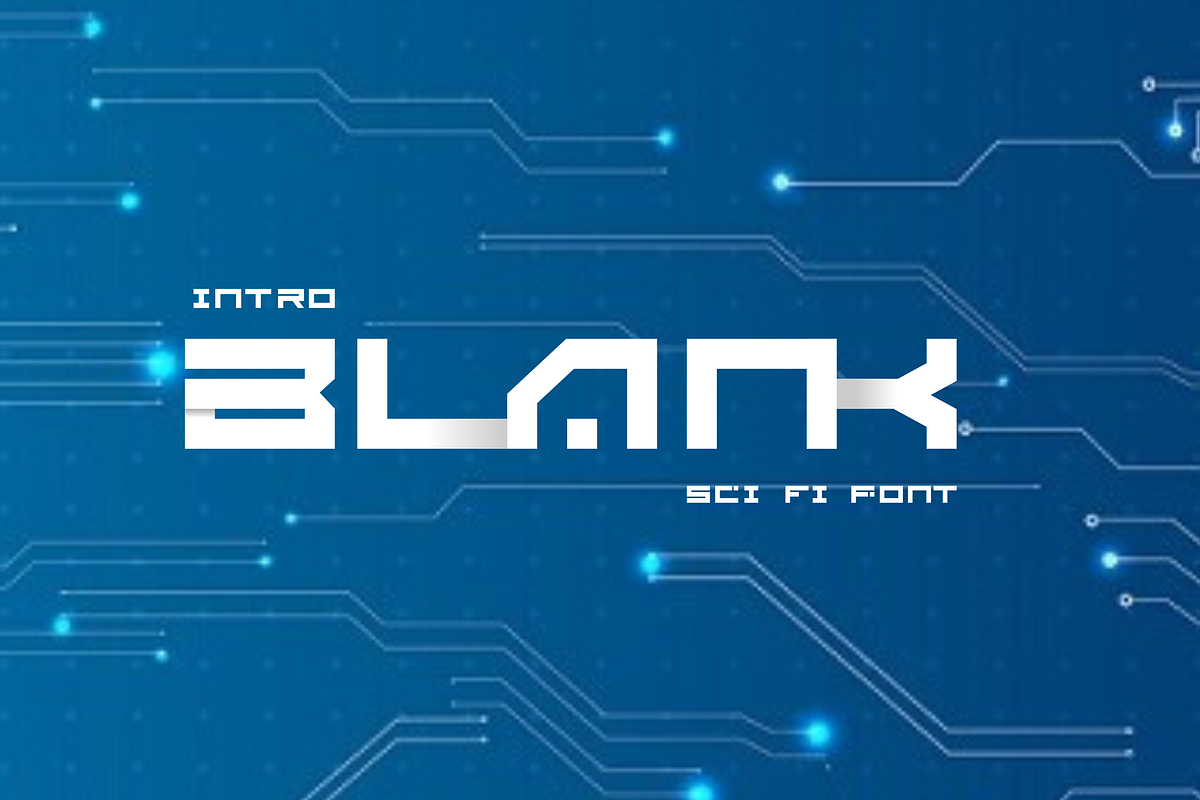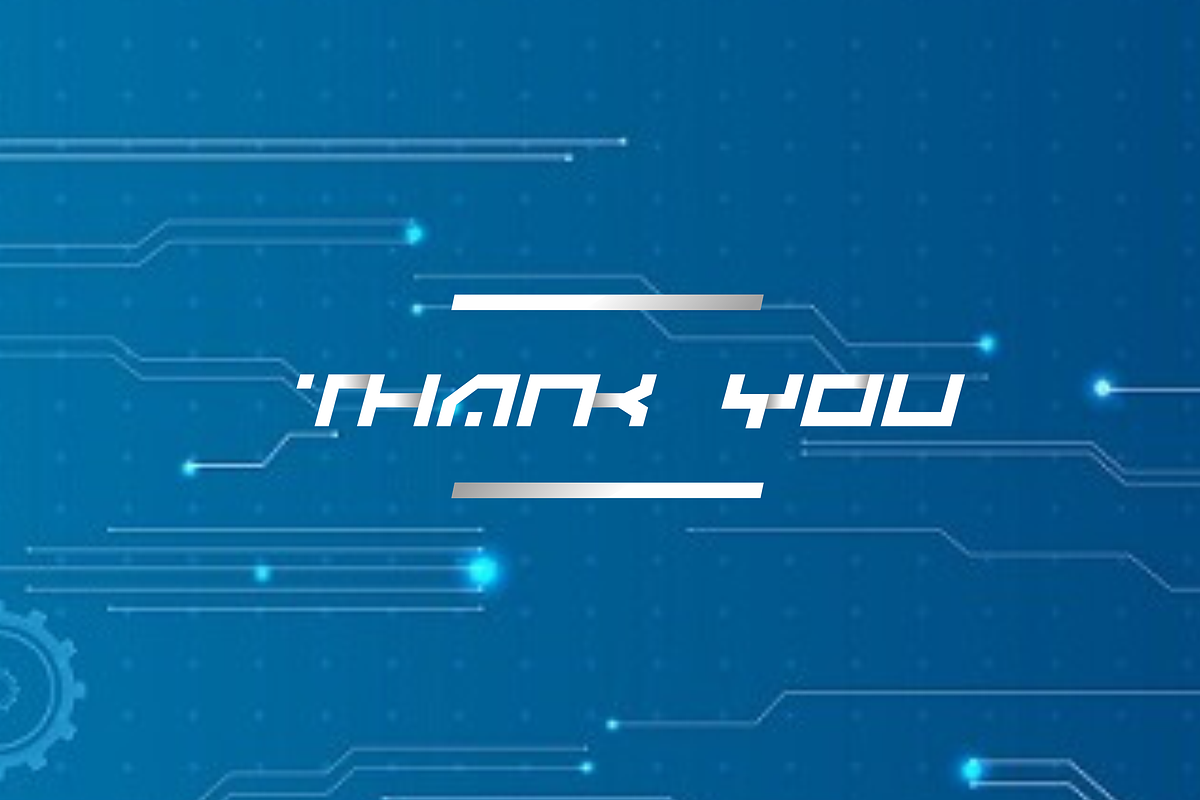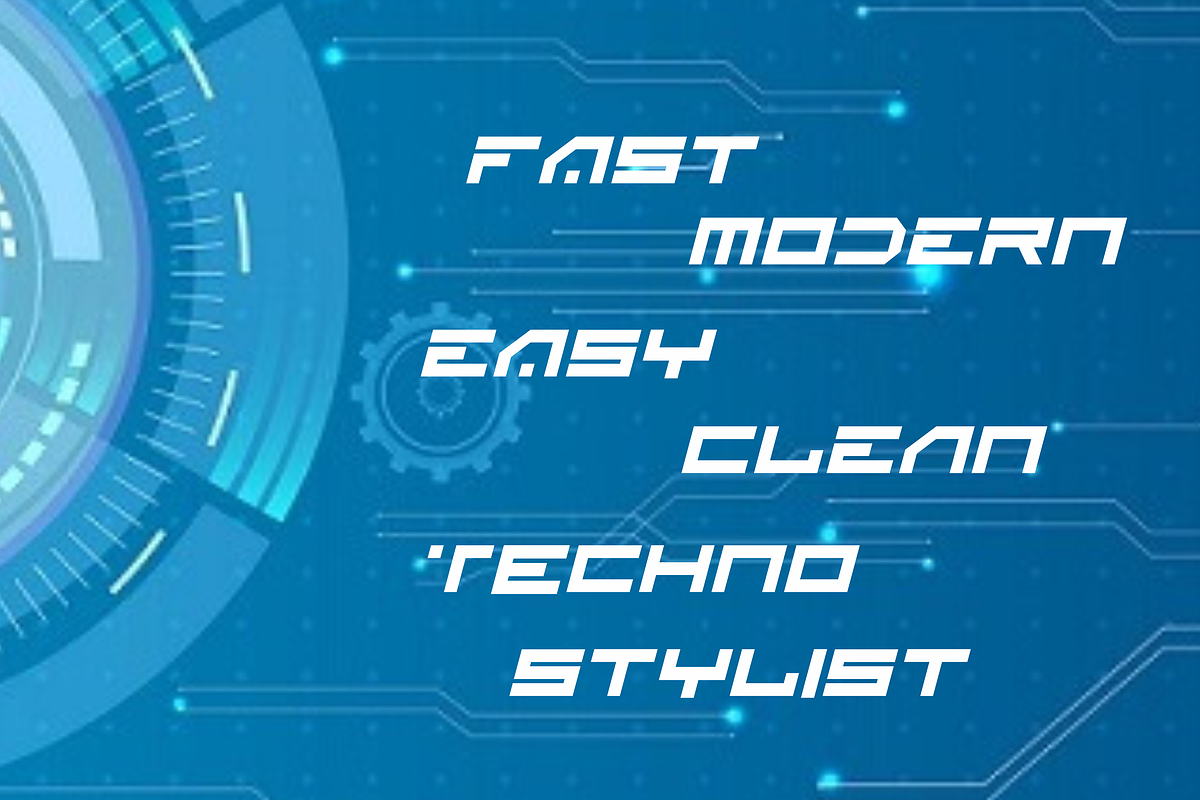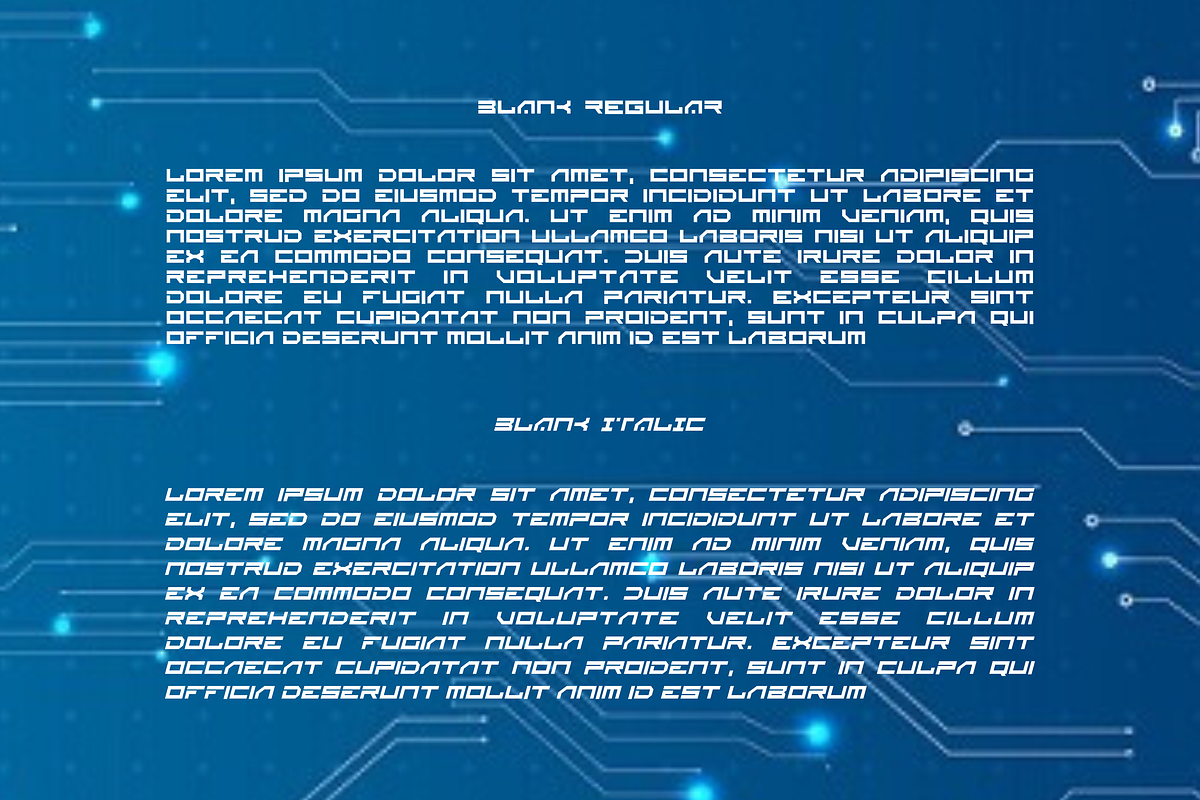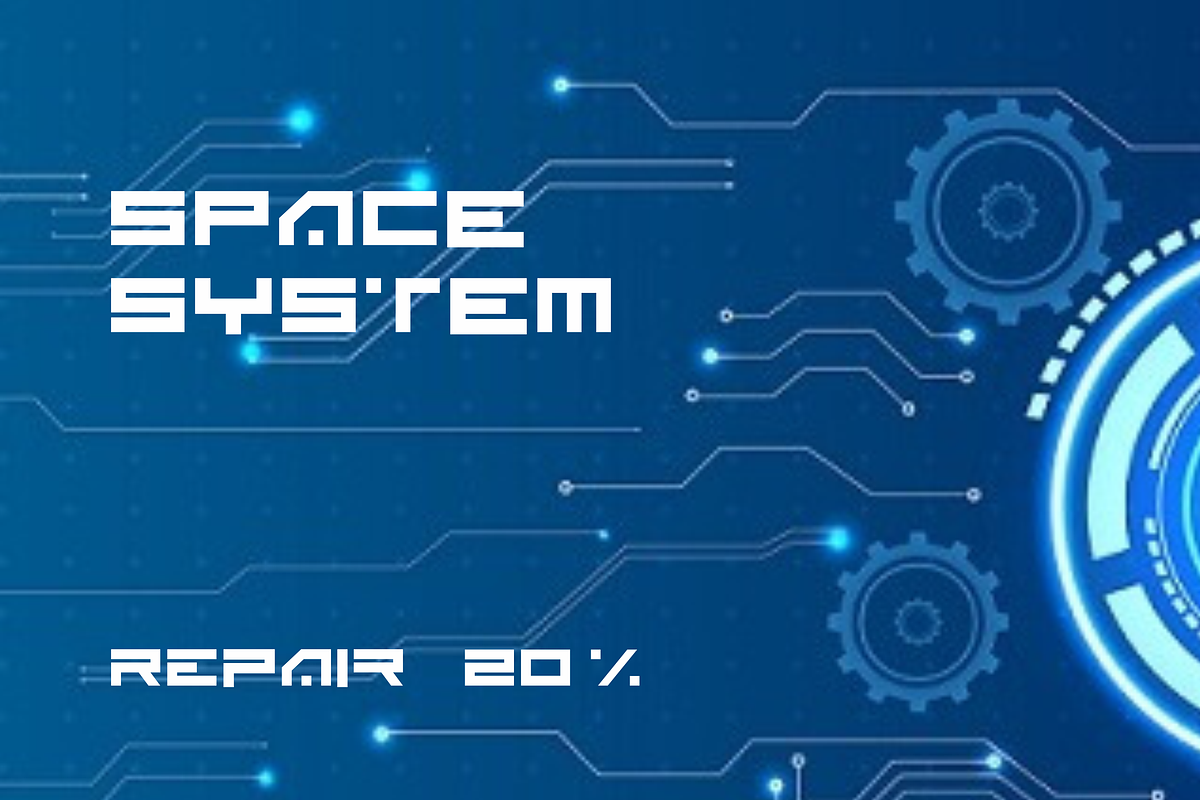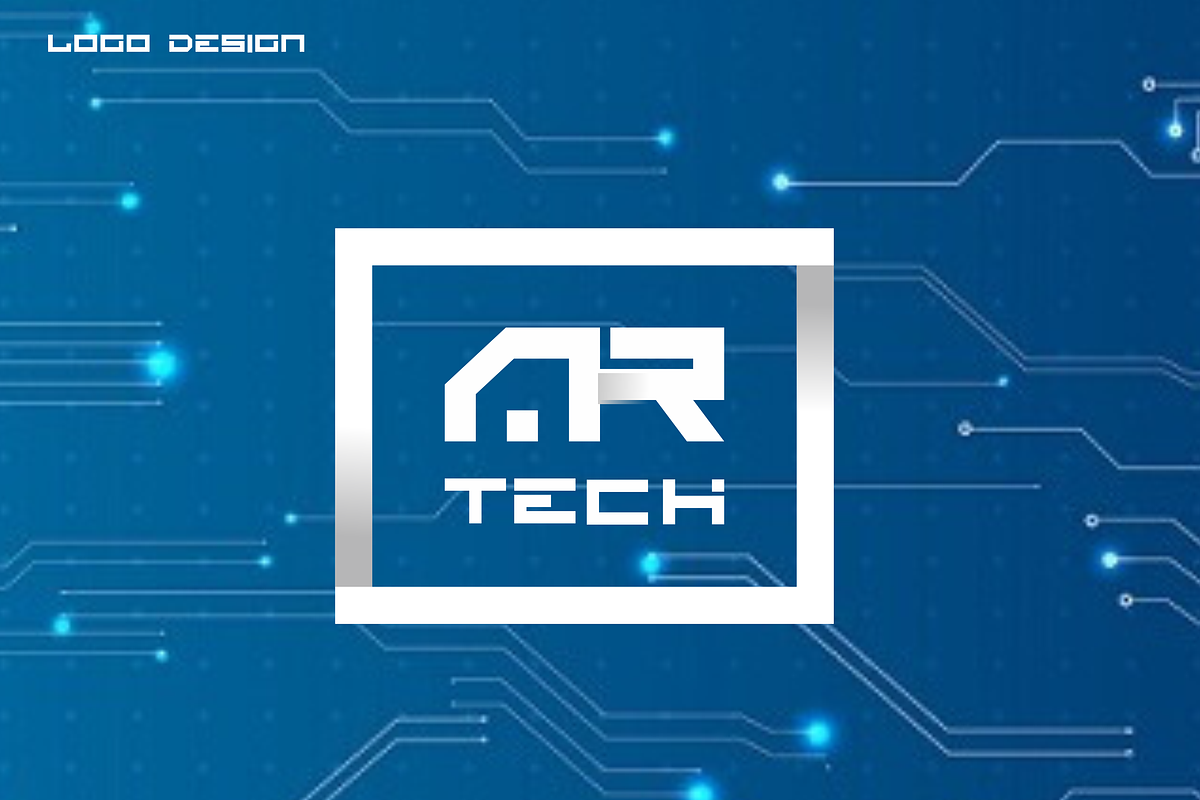
BLANK - Sci Fi Font ( 2 Font)
Blank is a modern, minimal and clean font family. include in regular and italic font. futuristic as my other sci-fi fonts but it's much more versatile and can be used for non sci-fi purposes as well. Teratur comes in thin,regular and bold weights. Toggle caps lock to use the alternate letters.
- Blank Regular
- Blank italic Italic